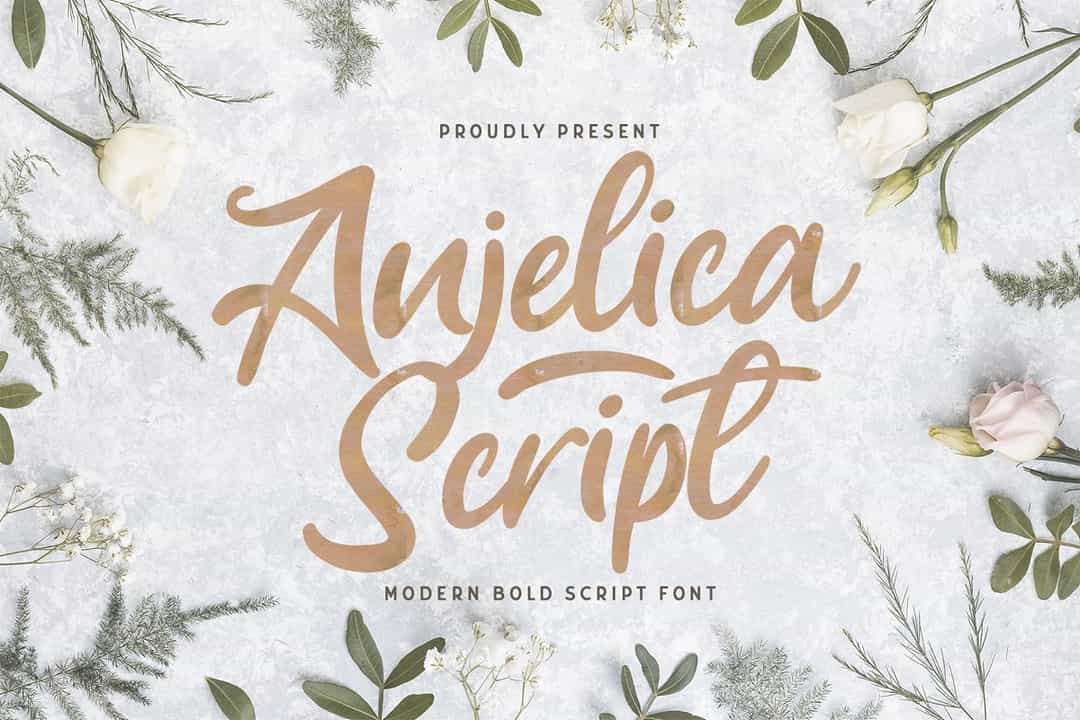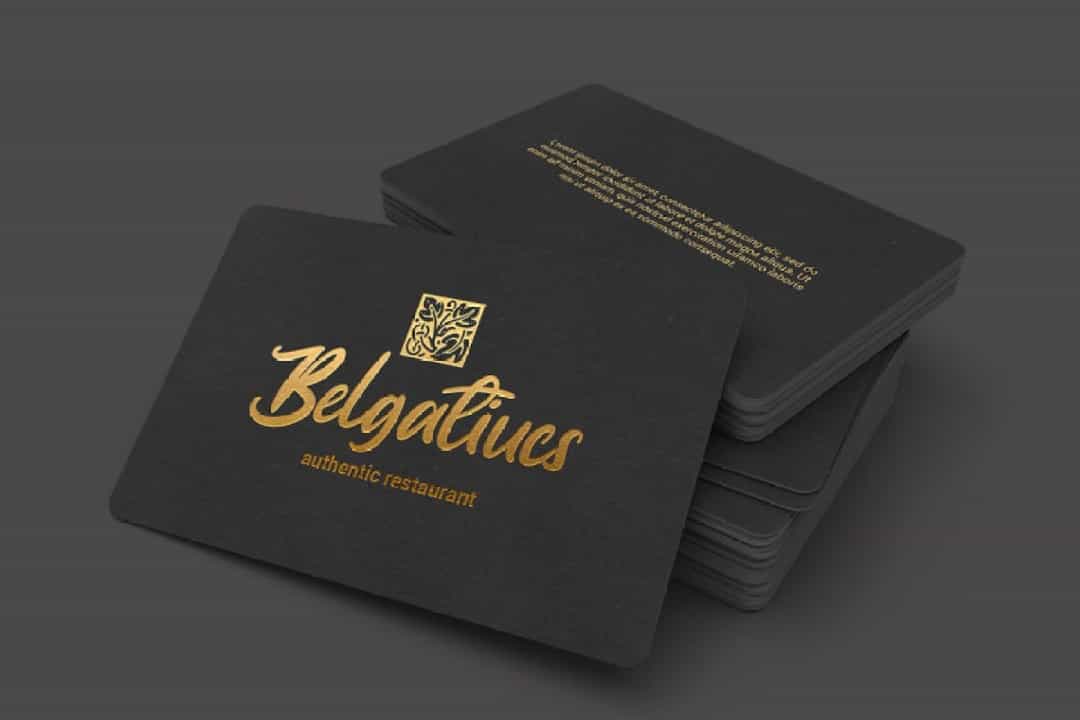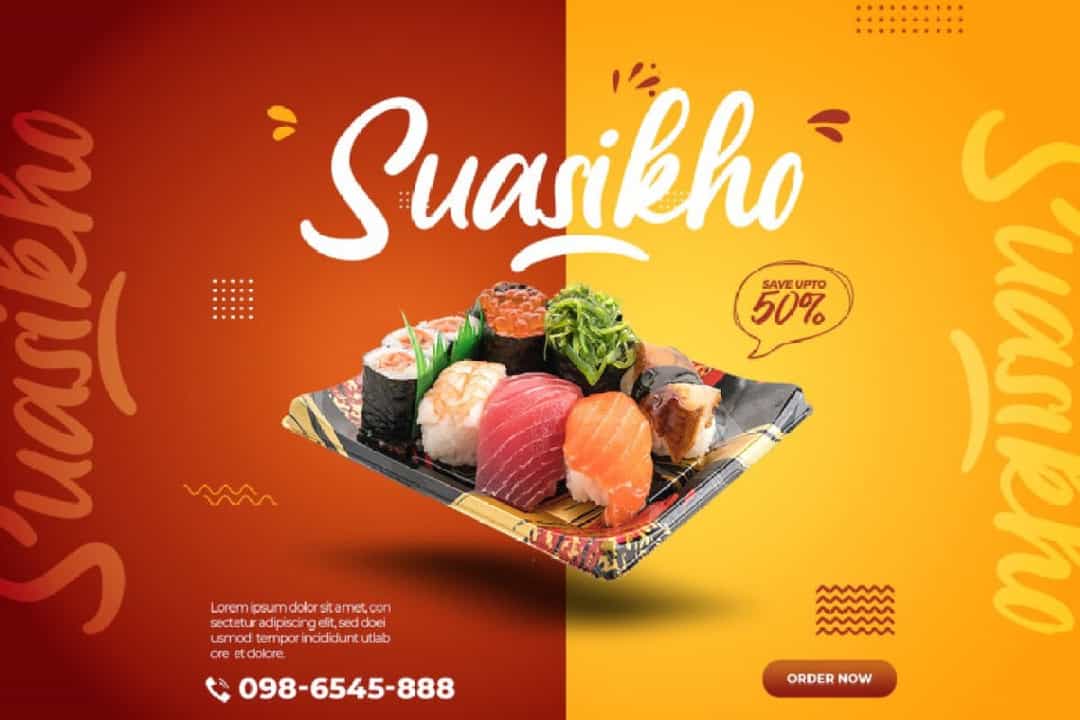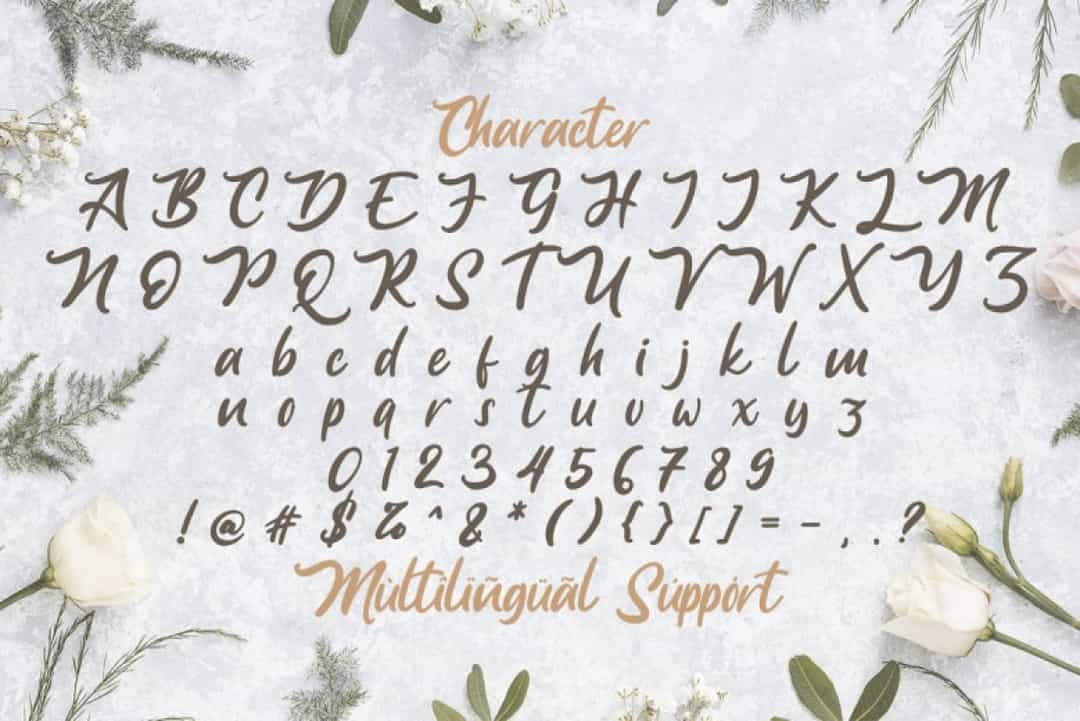
Discover Anjelica Bold Script Font, part of the Handwritten Script collection—a versatile and unique font perfect for adding a personal touch to your projects. Download it for free and enjoy crafting designs with style, from invitations to social media posts. This font is available exclusively for personal use, giving you the freedom to create without limits. Unlock your creativity with Anjelica Bold Script Font today!
Anjelica is a beautiful new font that belongs to the category of the contemporary fonts that are considered bold script having high contrast. Also, Aster Script is an uncomplicated font created as a handwritten typeface by the author. The latter is amply provided by this type of paper which is suitable for all types of display purposes ranging from posters and packings to fairy stories.